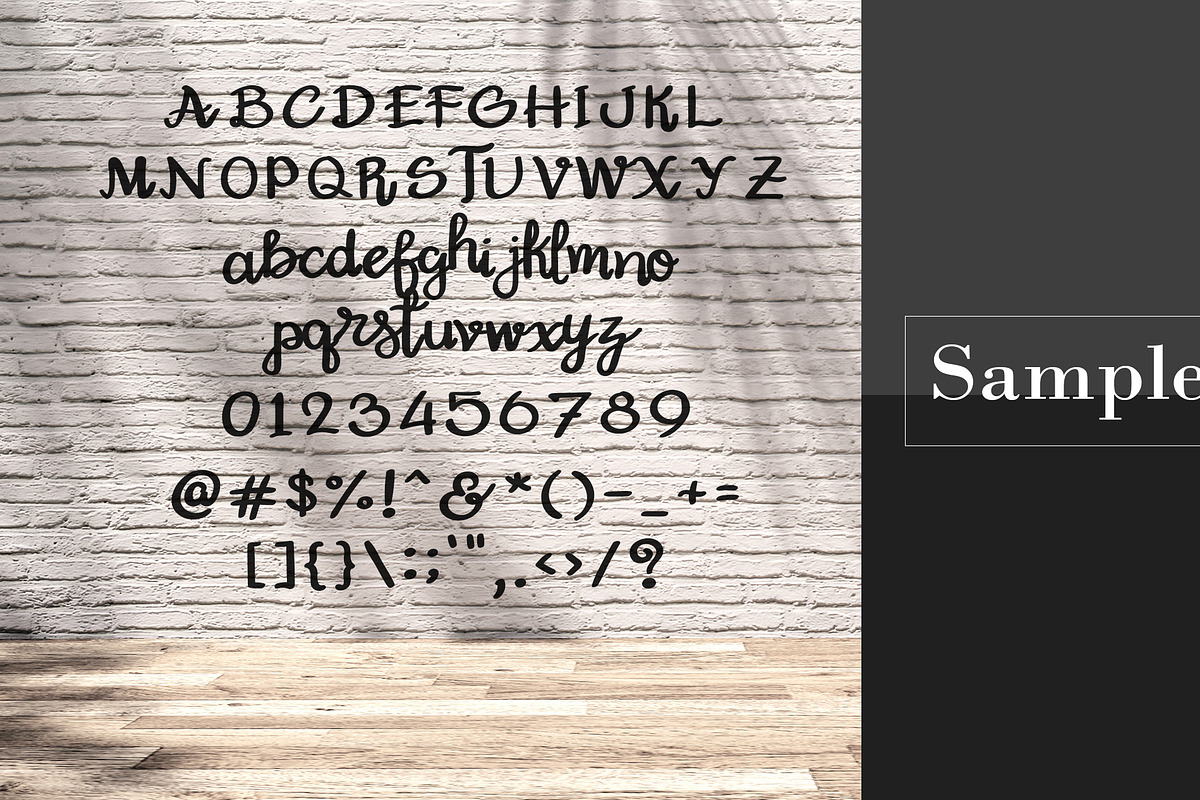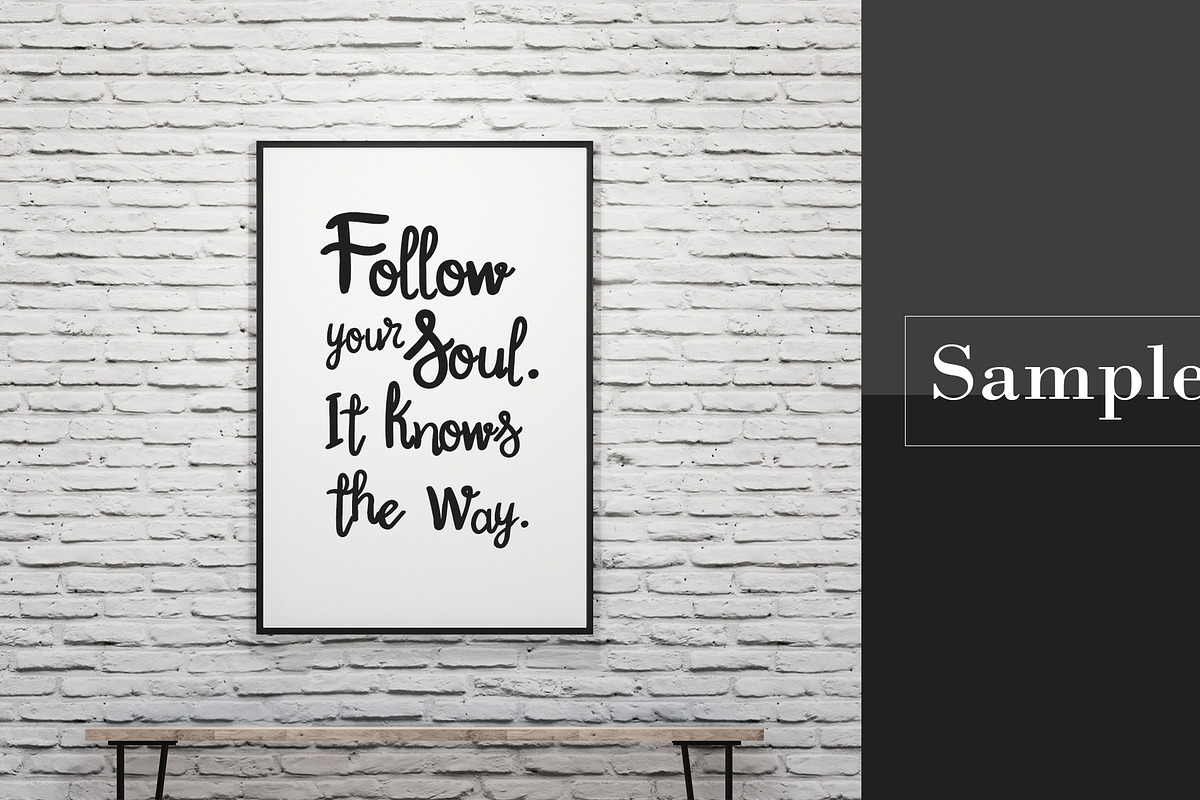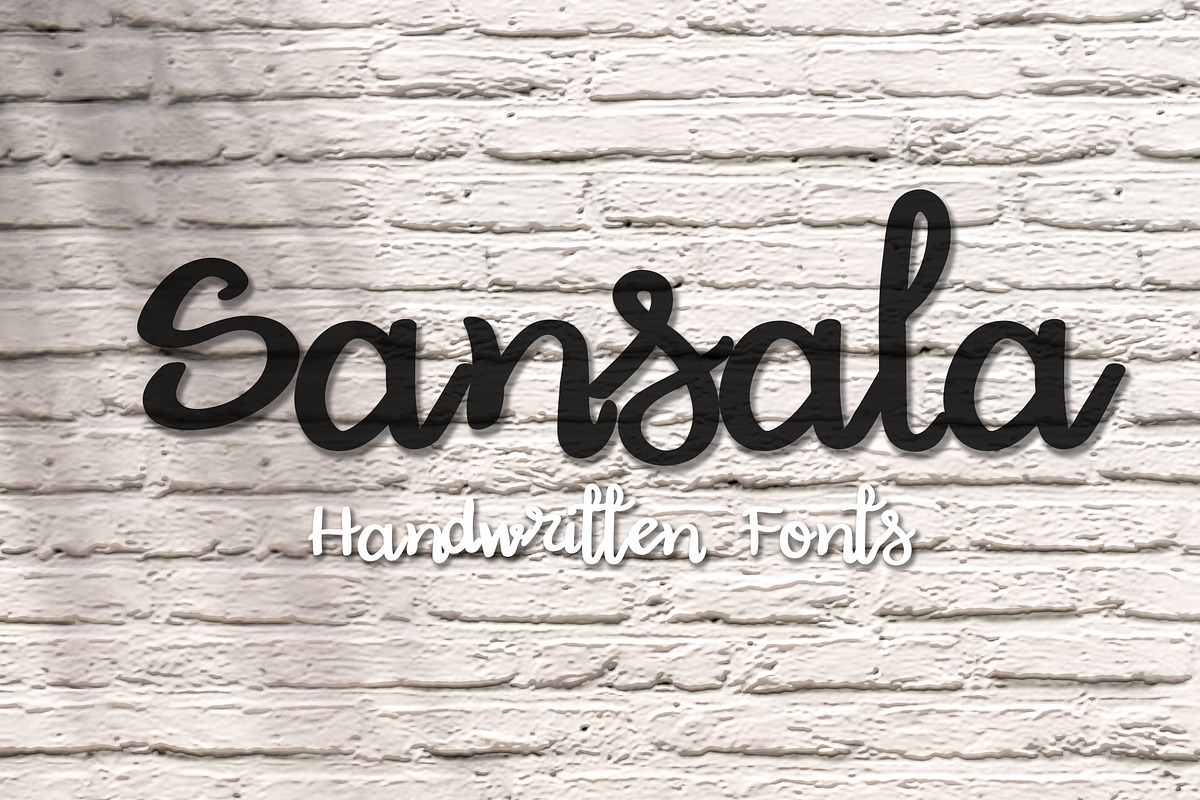
Sansala Font
Sansala Font is a handwriting font. Suitable for use with your photos. Try to use it, it may help you feel good.
Sansala Font by skyclick fits naturally into Branding, posters, packaging, typography.